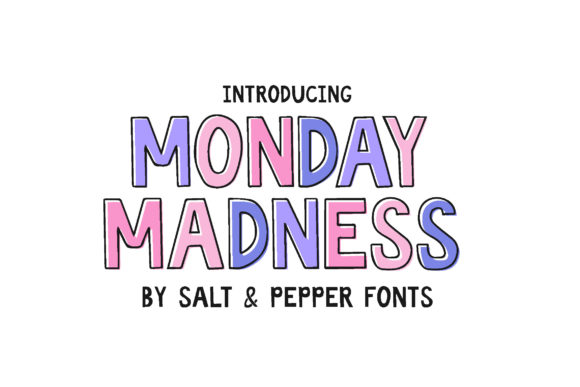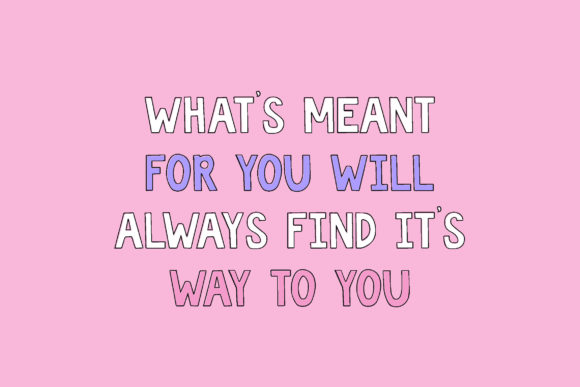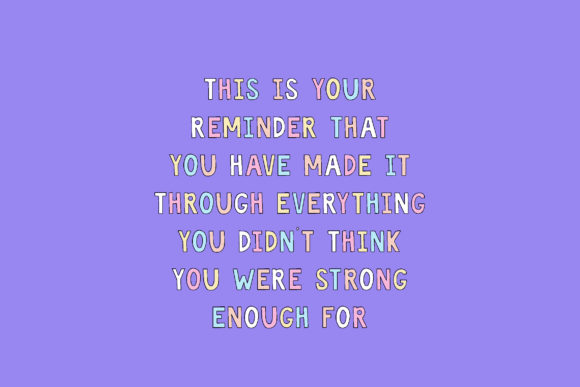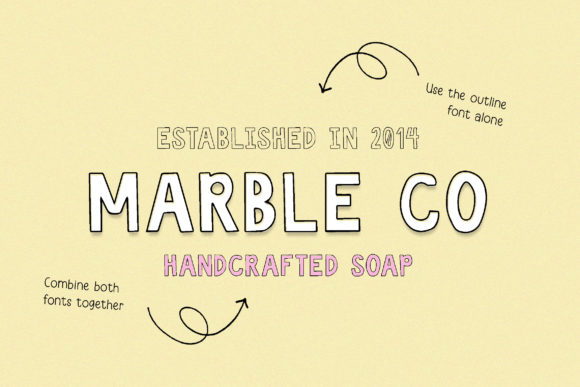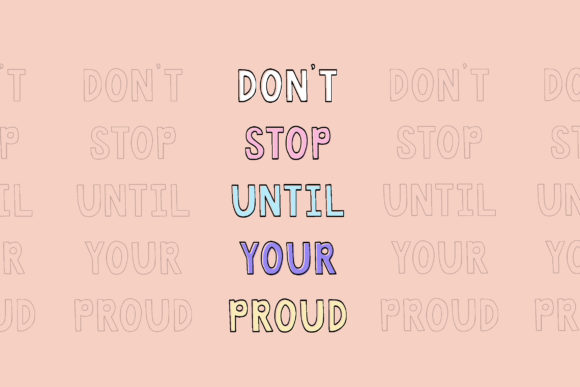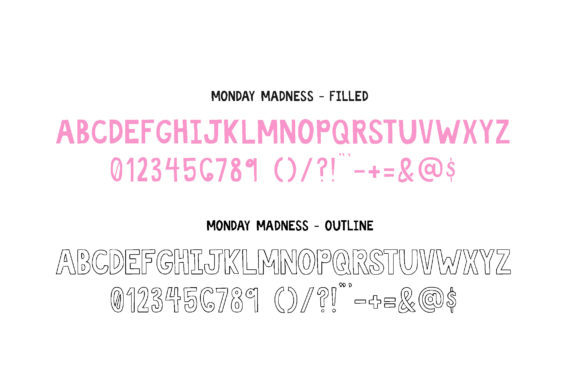
Monday Madness Font
Monday Madness is a cute and colorful display font. It embodies playfulness and authenticity and is the perfect choice for any children activity or school project.